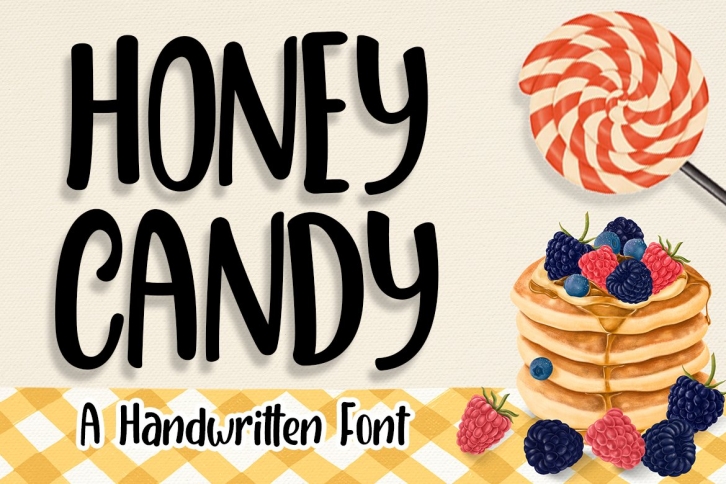
Honey Candy is a great font that was designed by Madatype Studio. Imagine the amount of combinations you can create using this font! The archive is 5.33 MB and it was released on March 10, 2020. Honey Candy looks beautiful on wedding invitations, greeting cards, logos, posters, labels, t-shirt designs, logos, business cards and is perfect for use in ink or watercolor works, fashion, magazines, packaging and food menus, children's books and more!